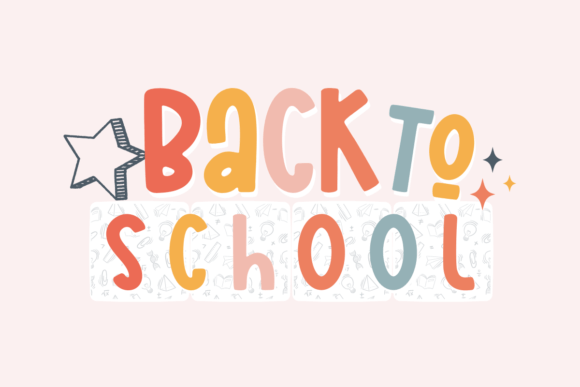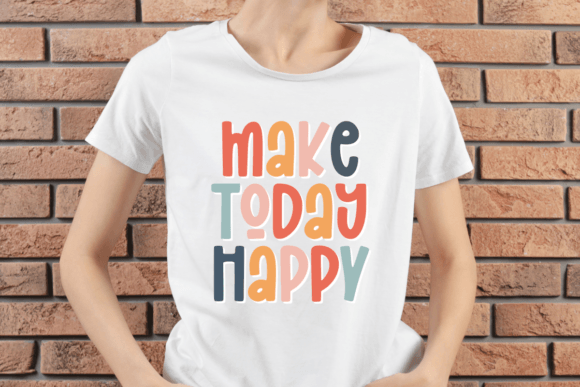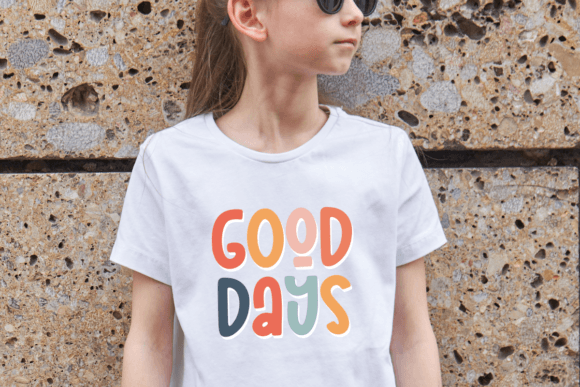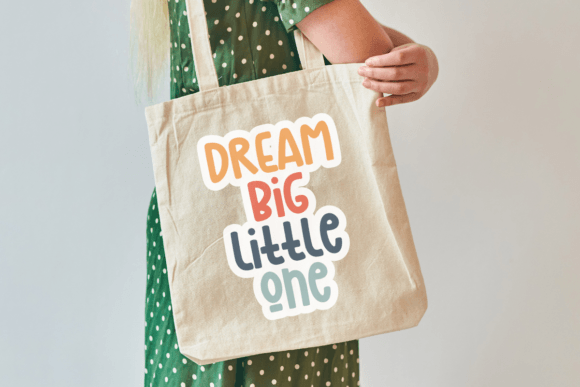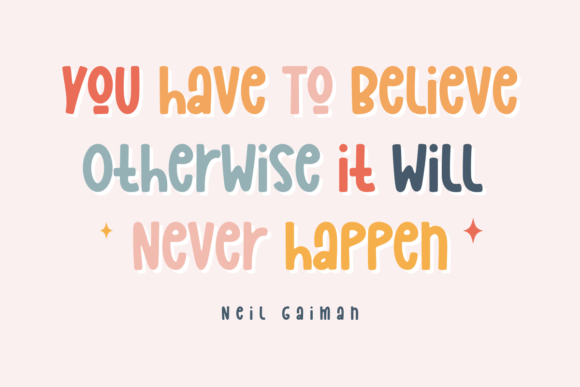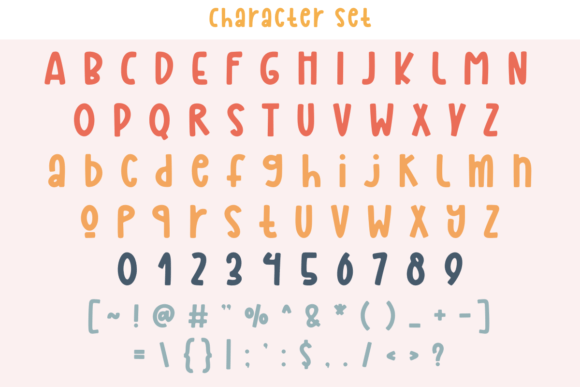
Baby Notes Font: Add a Dash of Whimsy to Your Designs
Are you looking for a font that can add a touch of playfulness and charm to your creative projects? Look no further than Baby Notes, a delightful font that is sure to bring a smile to your face. This charming font is filled with whimsy, making it the perfect match for a wide range of design projects, from crafting and back-to-school needs to trendy t-shirt designs and enchanting children’s apparel.
The Unique Characteristics of Baby Notes Font
Baby Notes font is a versatile and adorable font that carries a delightful blend of adorableness. Its unique characteristics make it stand out from other fonts, and it’s bound to add a dash of joy to your work. One of the best things about Baby Notes is its ability to mix and match upper and lower-case letters, adding a playful twist to your designs. This feature allows you to experiment with different combinations, creating unique and eye-catching text that is sure to grab attention.
Ideal Uses for Baby Notes Font
Baby Notes font is an ideal match for a wide range of design projects, including:
• Crafting Projects: Add a personal touch to your crafting projects, such as handmade cards, gift tags, and scrapbooking pages.
• Back-to-School Needs: Create eye-catching labels, stickers, and posters for the new school year.
• Trendy T-Shirt Designs: Design fun and playful t-shirts for kids and adults alike.
• Stimulating Quotes: Add a touch of whimsy to your inspirational quotes and social media posts.
• Chic Tote Bags: Design stylish and functional tote bags for everyday use.
• Enchanting Children’s Apparel: Create adorable and playful designs for kids’ clothing and accessories.
Adding the Finishing Touch to Your Book Covers
Baby Notes font is also perfect for adding the finishing touch to your book covers. Whether you’re a self-published author or a professional designer, this font can help you create eye-catching and professional-looking book covers that will grab attention. With Baby Notes, you can add a playful and whimsical touch to your book covers, making them stand out from the crowd.
Tips for Using Baby Notes Font
Here are some tips for using Baby Notes font in your designs:
• Experiment with Different Combinations: Don’t be afraid to mix and match upper and lower-case letters to create unique and eye-catching text.
• Use it in Combination with Other Fonts: Baby Notes font pairs well with other fonts, so feel free to experiment with different combinations.
• Add a Pop of Color: Use Baby Notes font in a bold and bright color to add a pop of color to your designs.
• Keep it Simple: Don’t overcomplicate your designs. Keep it simple and let the font speak for itself.
In conclusion, Baby Notes font is a charming and versatile font that is sure to add a dash of whimsy to your designs. Its unique characteristics, such as the ability to mix and match upper and lower-case letters, make it stand out from other fonts. With its wide range of uses, from crafting and back-to-school needs to trendy t-shirt designs and enchanting children’s apparel, Baby Notes font is a must-have for any designer or crafter. So why not give it a try and see how it can bring your creative projects to life?